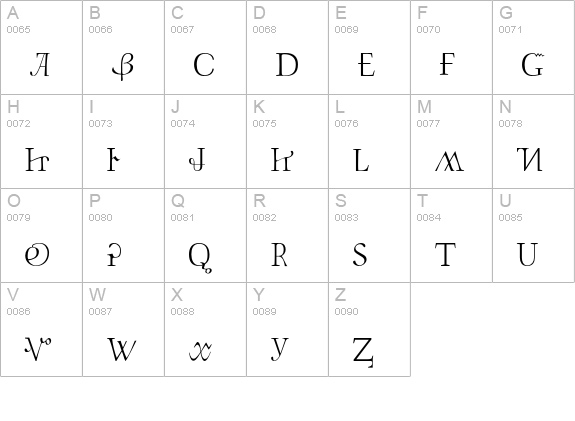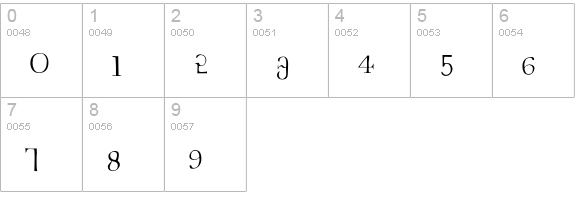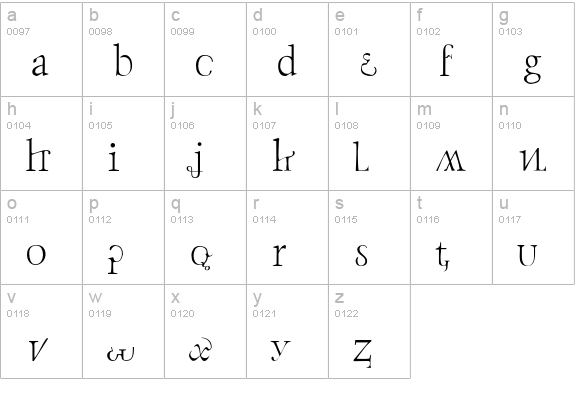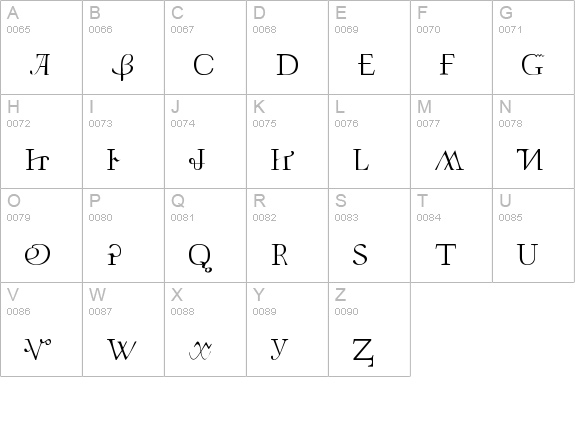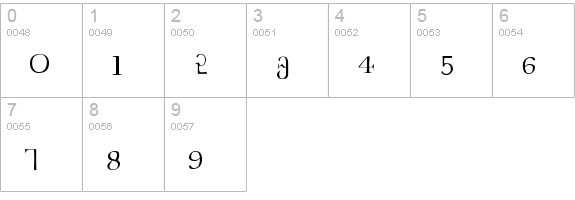
SubluxationPerma Font Details
SubluxationPerma font is a modern and stylish typeface that exudes elegance and sophistication. With its sleek lines and sharp edges, this font is perfect for creating eye-catching designs that demand attention. The unique letterforms of SubluxationPerma font add a touch of creativity and flair to any project, making it stand out from the crowd. What sets SubluxationPerma font apart is its versatility - it can be used for a wide range of design projects, from branding and advertising to social media graphics and website design. Whether you're working on a sleek and modern project or a more traditional and classic design, SubluxationPerma font is sure to elevate your work to the next level. Best of all, SubluxationPerma font is completely free to download at FontsMarket.com. This means that you can access this stylish and sophisticated typeface without breaking the bank. So why wait? Download SubluxationPerma font today and add a touch of elegance to your design projects.